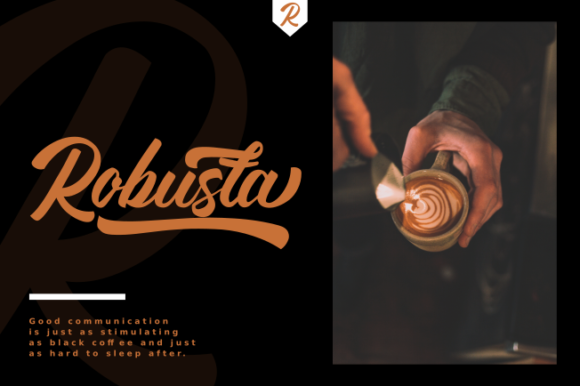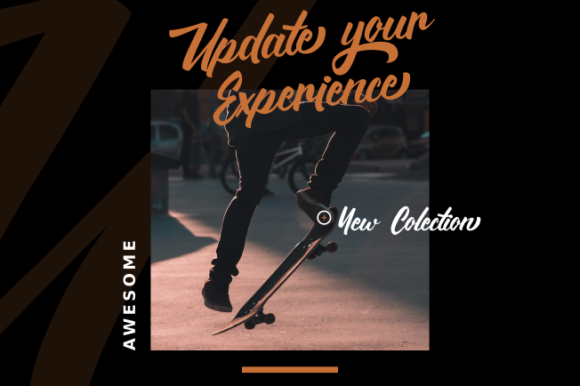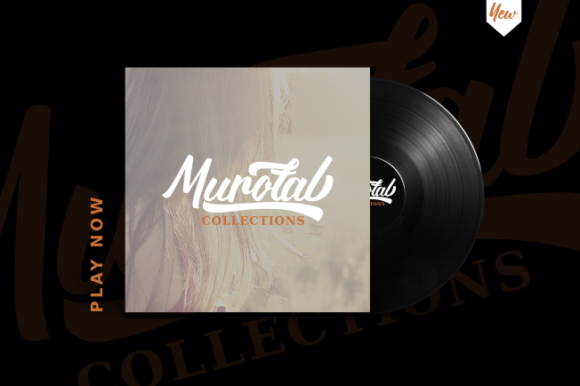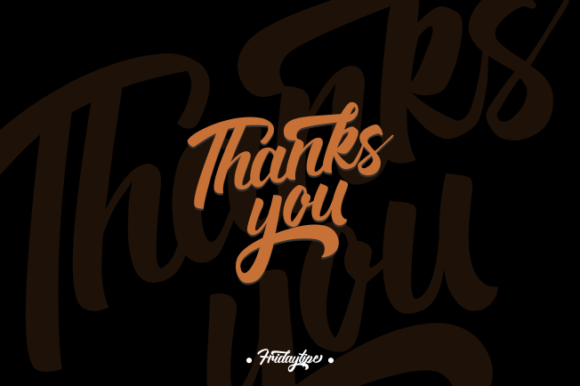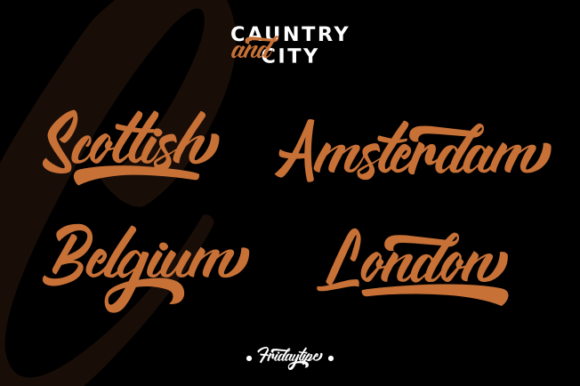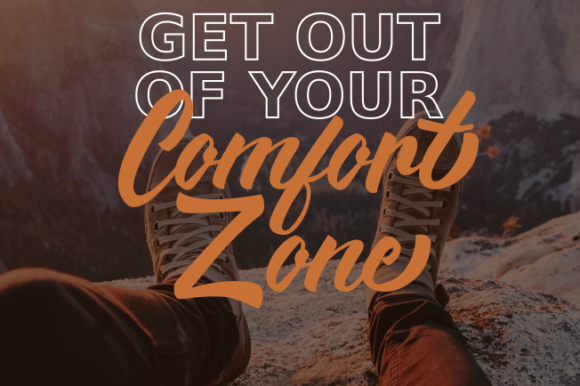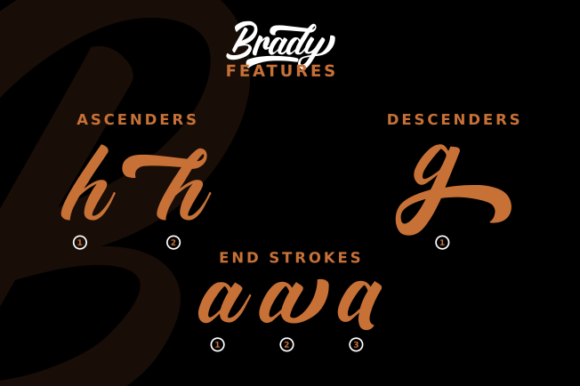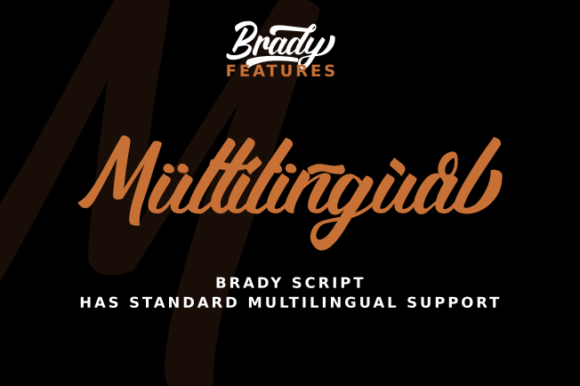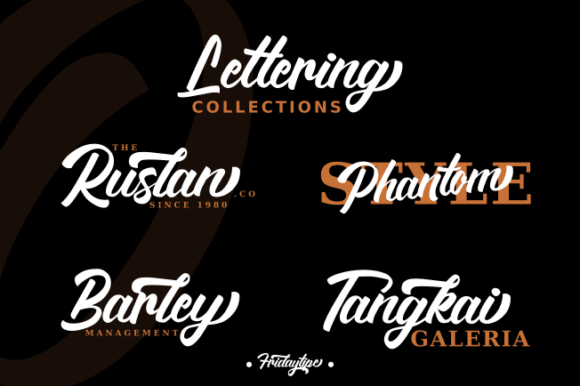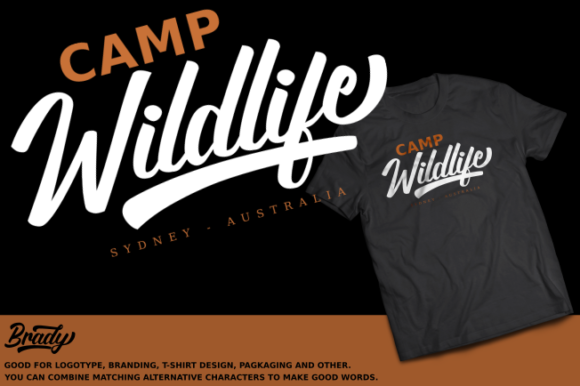
Brady Font
About Brady Font
Brady is a script font with a clear style and dramatic movement. This unique and attractive font is great for a variety of projects.